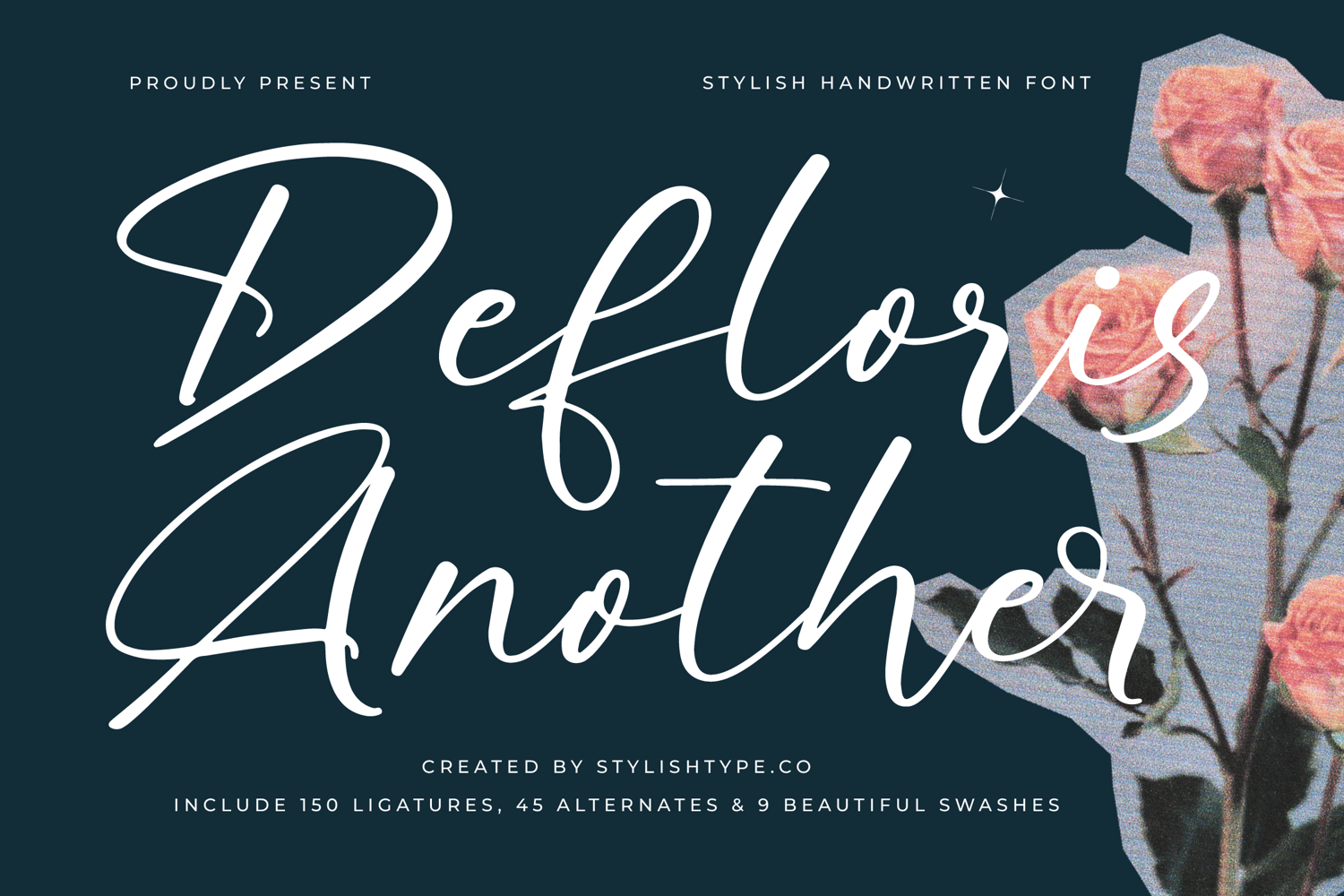
Defloris Another - Stylish Handwritten Font
Defloris Another
Defloris Another Italic
Defloris Another - Stylish Handwritten Font , from Stylishtype.Co , Suitable for any projects such as: logos, branding projects, homeware designs, product packaging, mugs, quotes, posters, shopping bags, t-shirts, book covers, name card, invitation cards, greeting cards, label, photography, watermark, special events, and all your other luxury and beautiful projects that need a Luxury Script taste.